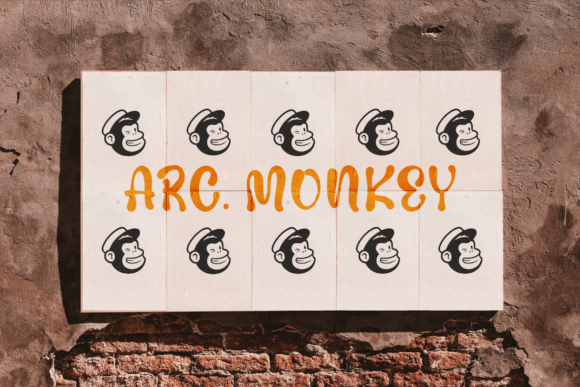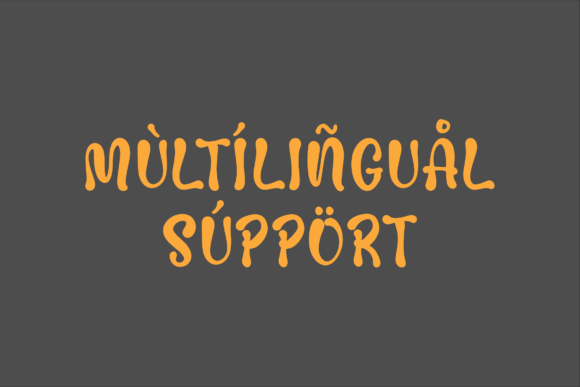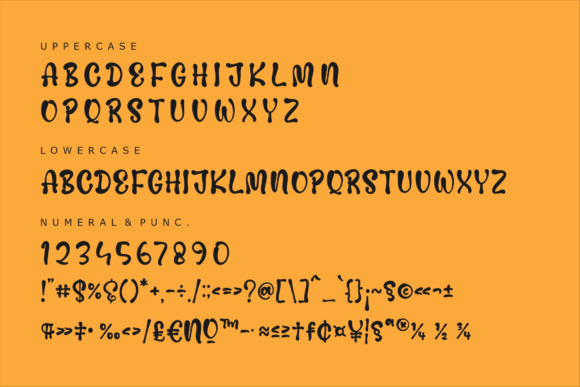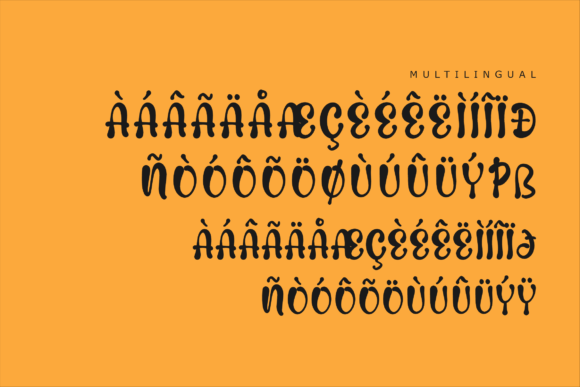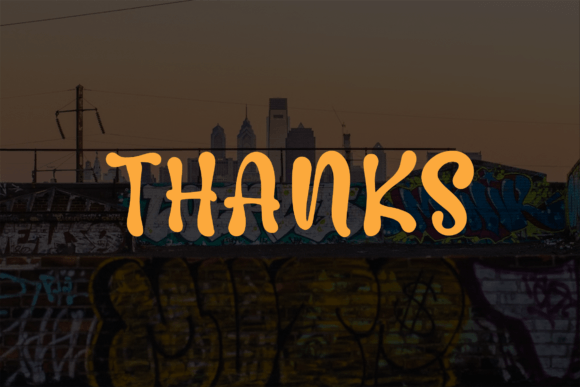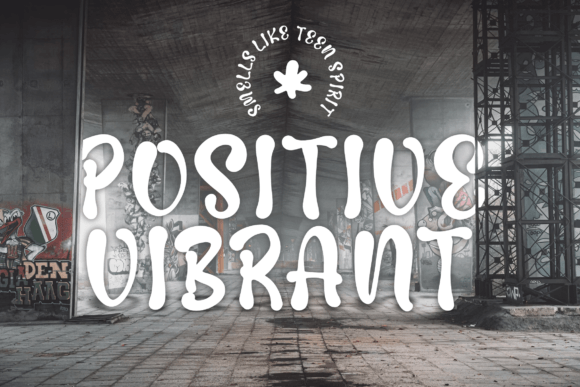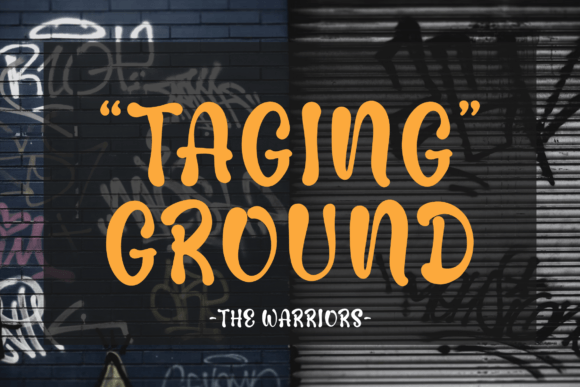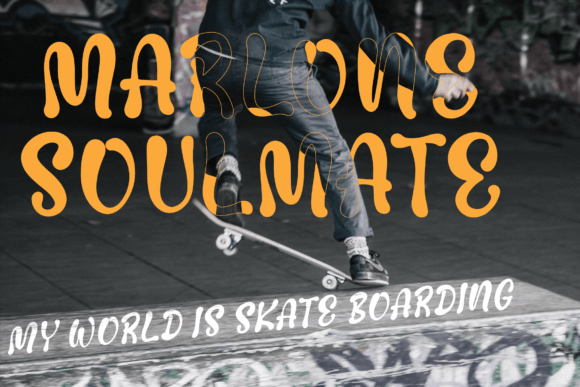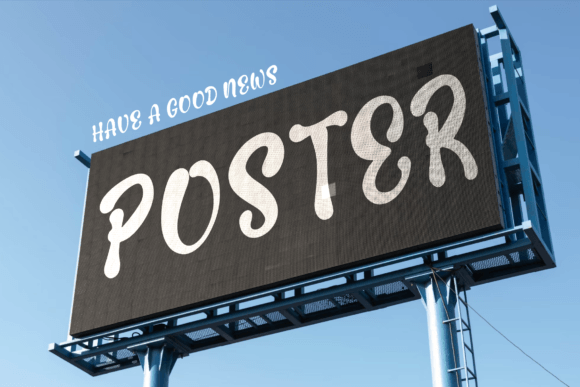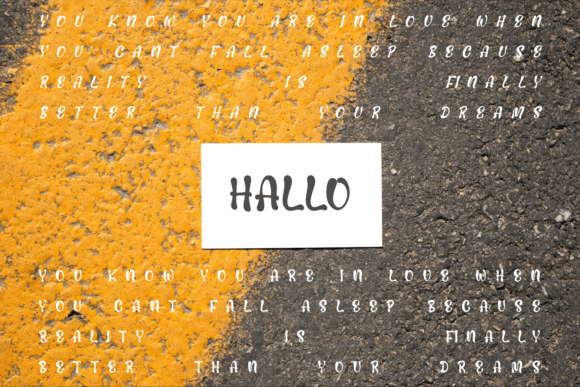
Damrush Pocket Font
About Damrush Pocket Font
Damrush Pocket – Groovy Handwritten Font suitable for any projects such as logos, branding projects, homeware designs, product packaging, mugs, quotes, posters, shopping bags, t-shirts, book covers, name cards, invitation cards, greeting cards, labels, photography, watermark, special events, and all your other lovely projects that need a beautiful script taste.